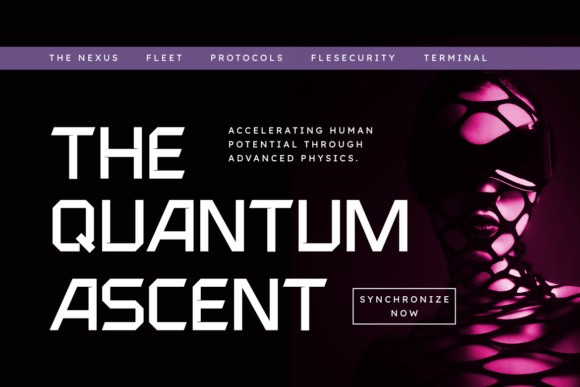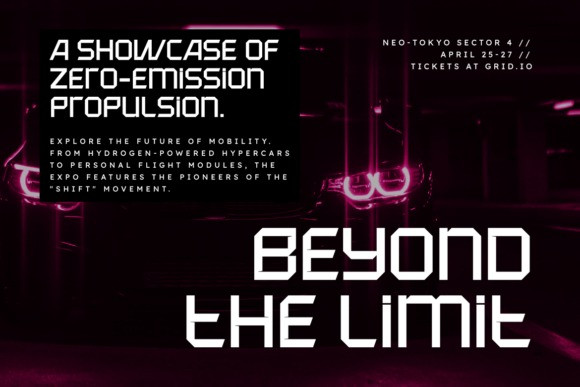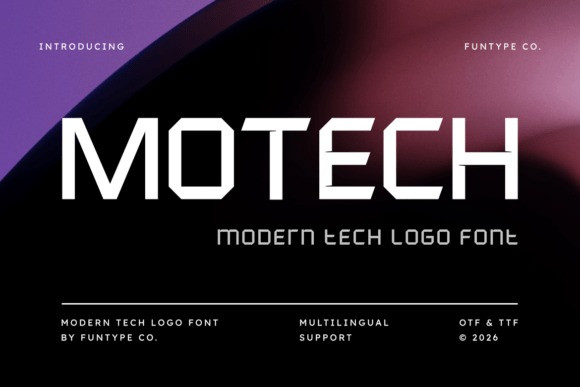
Motech Font
Motech Font is a bold and powerful modern tech logo font designed for impactful and futuristic typography. With its refined geometric structure and sharp technical lines, this font is perfect for strong headlines, professional tech logos, industrial branding, and high-impact digital posters. Its confident and innovative design gives your visuals a striking, professional, and advanced look. Provided in OTF and TTF formats with multilingual support for maximum compatibility across all design platforms.